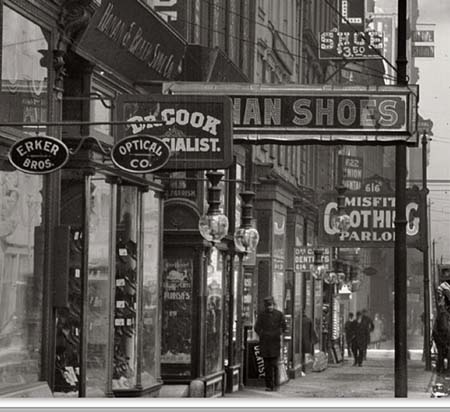
precursor to LED signs
Look closely under the SWIFT sign at the bulb pattern boards. (think Las Vegas to come) lol!!
Also there is a sign shop and United Cigar shop.
Check out the "eye" signs.
Not to mention all the oil stains in the street from the "horseless carriages".
what an incredible photo. Amazingly crisp.
As for the signage in it...The thing that strikes me most is all the gold signs on those small windows up several stories. You just never see that here. No one puts a window sign about the second floor. Yet looking at the 12 story building one block behind the featured one, it has window signs right up at the top.
Another Rawson & Evans style sign and more.
Check out the partially visible R&E style sign (___NAN SHOES) with lighted jeweled letters and mirror bevel accents. Can't read the makers name clearly (bottom center)
and the bevel designs don't match the R&E style I'm generally familiar with.
Also check out "MISFIT CLOTHES PARLOR" a gilded glass sign with bright gold out lines (the brights also reflected in the store front window).
The big glass "CIGARS" wedge sign is cool with it's floral border. Check the "blurry man" across the street wearin' the sandwich sign "Goody Goody French Candy- Best Made 5c"
CRICKY! It's 2:00 AM and I need to hit the sack, but I love to walk these old "sign streets" till the wee mornin' hours on Shorpy lookin' for treasures- It"s like going back in time! OOPPS!! look out for the horse poop!! lol!
I love these photos.
On the MISFIT sign, you can clearly see the bright outline of the G at the end of "clothing". In light of my previous post (number 9) on the glass panels used on a verandah, this looks like the same type of thing. That's makes two examples.
The other thing I note which you rarely see anymore is the narrow glass panel below the main window and built into a frame that angles it upwards. It's on Erker Bros. and there's another one across the road for G.H.Boehmer shoes.
Also the windows of the Law offices...6/7 floors up...classic.
Pat your warning came too late....
I was looking up, to the signs, soo concentrated before I knew it I already stept into the horse poop.
You can see me in the corner at the end of the street whiping my shoe while looking at the signs.
Glass signage..... Those good old before-dibond times....
Another Rawson & Evans style double sided sign with mirrored/chipped bevels and lit jeweled letters sign on Shorpy. "The Illinois"
R&E may have done the balcony signs and the stained glass transom as well.